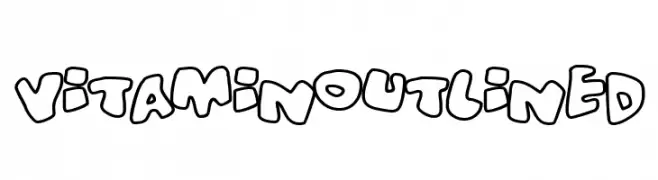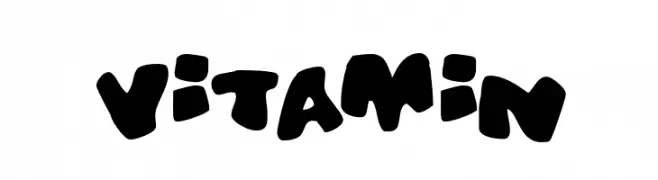
A bold, playful font with chunky, rounded letters and a whimsical style.
A bold, playful font with rounded, cartoonish characters.
A playful, outlined font with a cartoonish and lively style.
A playful, outlined font with a cartoonish and bold style.